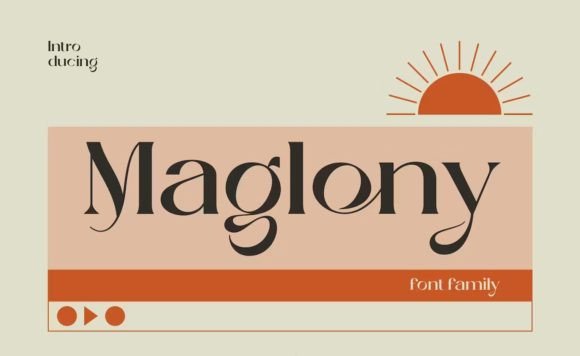
Journey to a world of elegance and sophistication with the Maglony Serif Font, a masterpiece crafted by the renowned Roman Caseru. This captivating typeface exudes a dynamic serif style that dances across your designs with unmatched grace and allure. Prepare to be mesmerized by the sweeping curves and smooth transitions that define each letterform, creating a visual symphony that elevates your designs to new heights.
The Maglony Serif Font is a versatile chameleon, effortlessly adapting to a myriad of creative endeavors, from branding and logos to editorial design and web typography. Its inherent charm lends itself seamlessly to projects that demand a touch of elegance and refinement. Whether you seek to craft a timeless logo that exudes professionalism or design marketing materials that radiate sophistication, the Maglony Serif Font is your steadfast companion.
With 577 glyphs at your disposal, including a treasure trove of unique and enticing alternatives, the Maglony Serif Font empowers you to unleash your creativity and forge truly distinctive designs. Experiment with the array of weights, ranging from the delicate Thin to the commanding Heavy, to achieve striking contrasts and visual depth in your typography.
Dive into the Maglony Serif Font's captivating world, where every letter is a work of art, and each word carries an aura of sophistication. Let this elegant typeface transform your designs into masterpieces that leave an indelible mark on your audience. Embrace the Maglony Serif Font and embark on a journey of creative excellence.